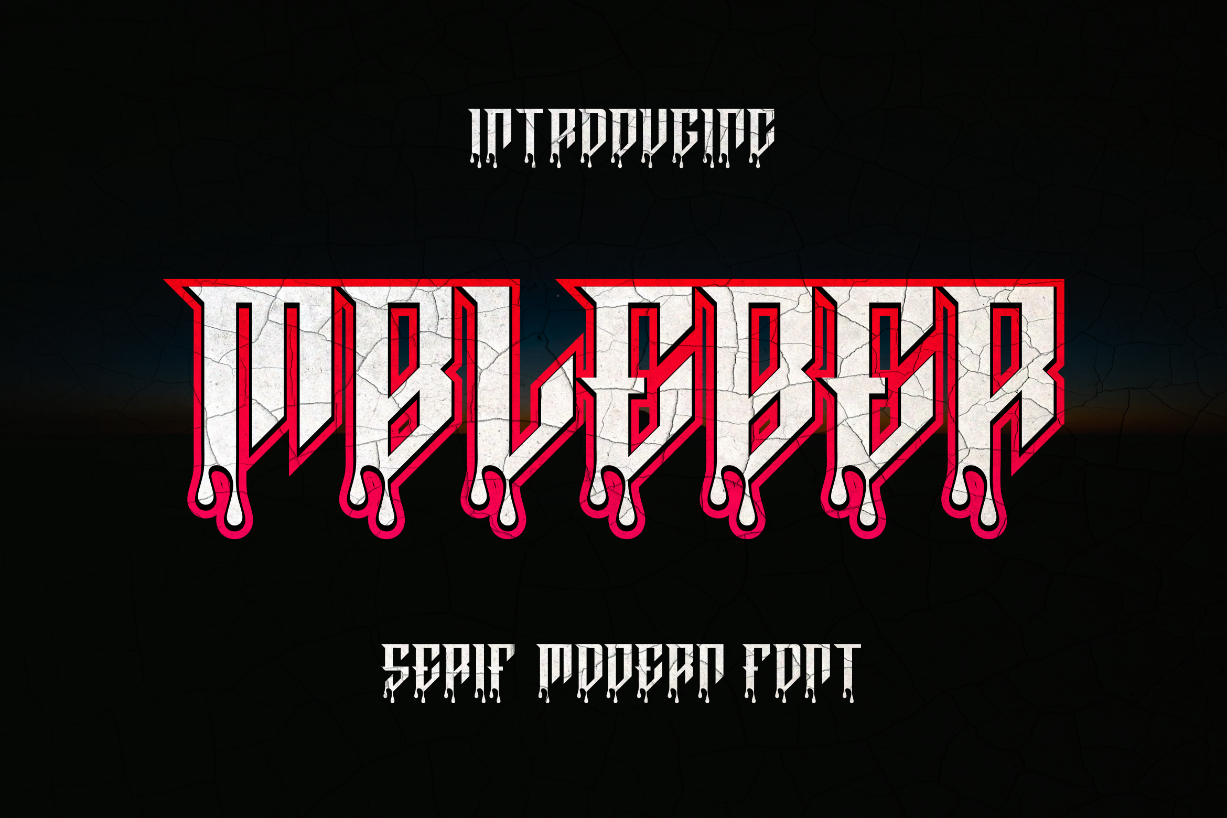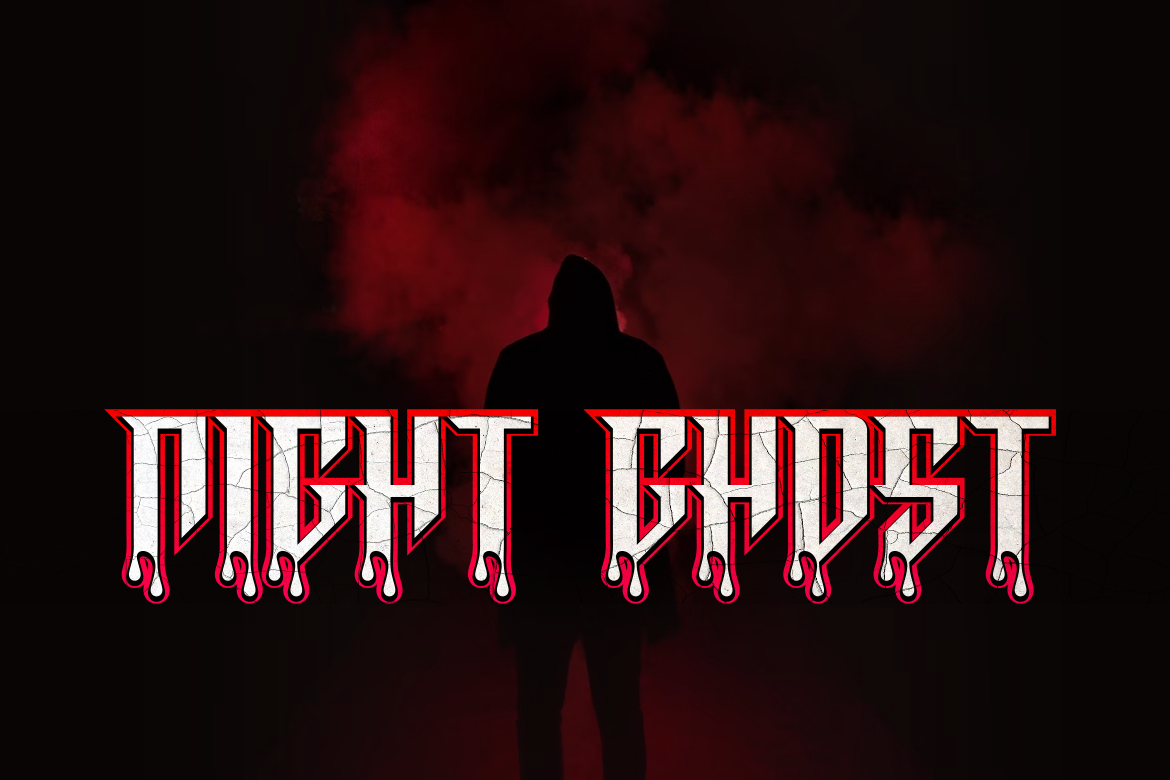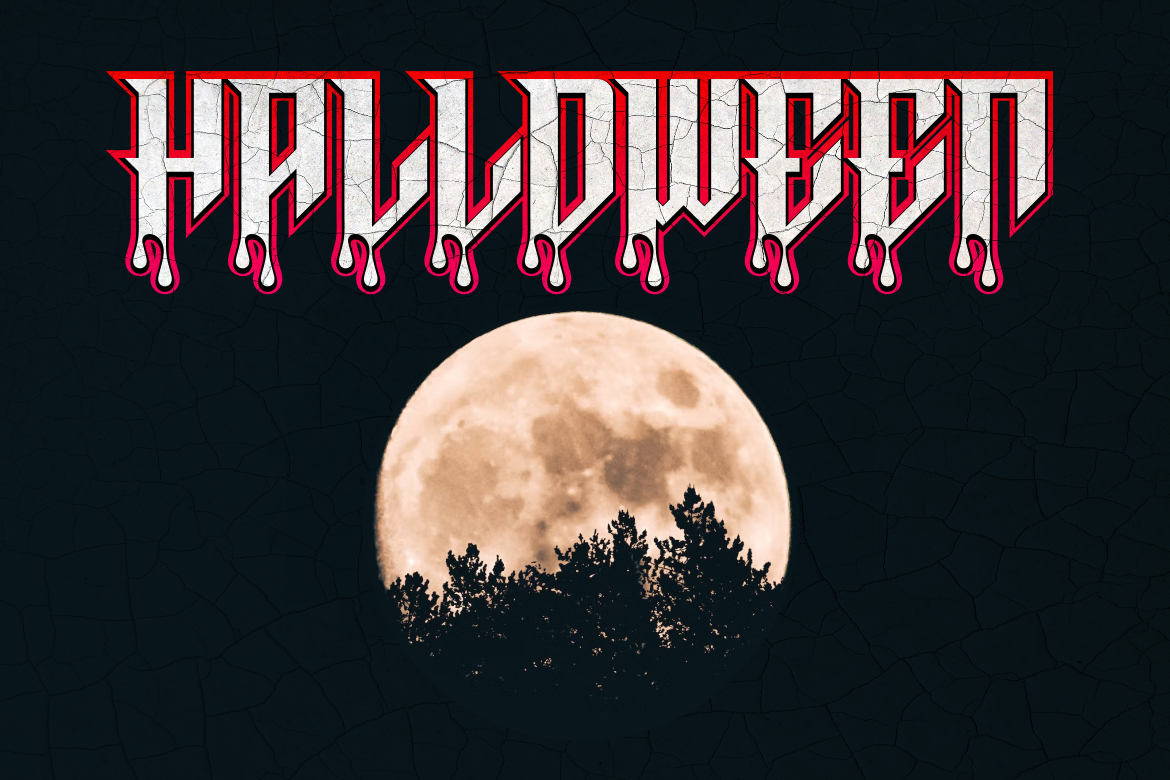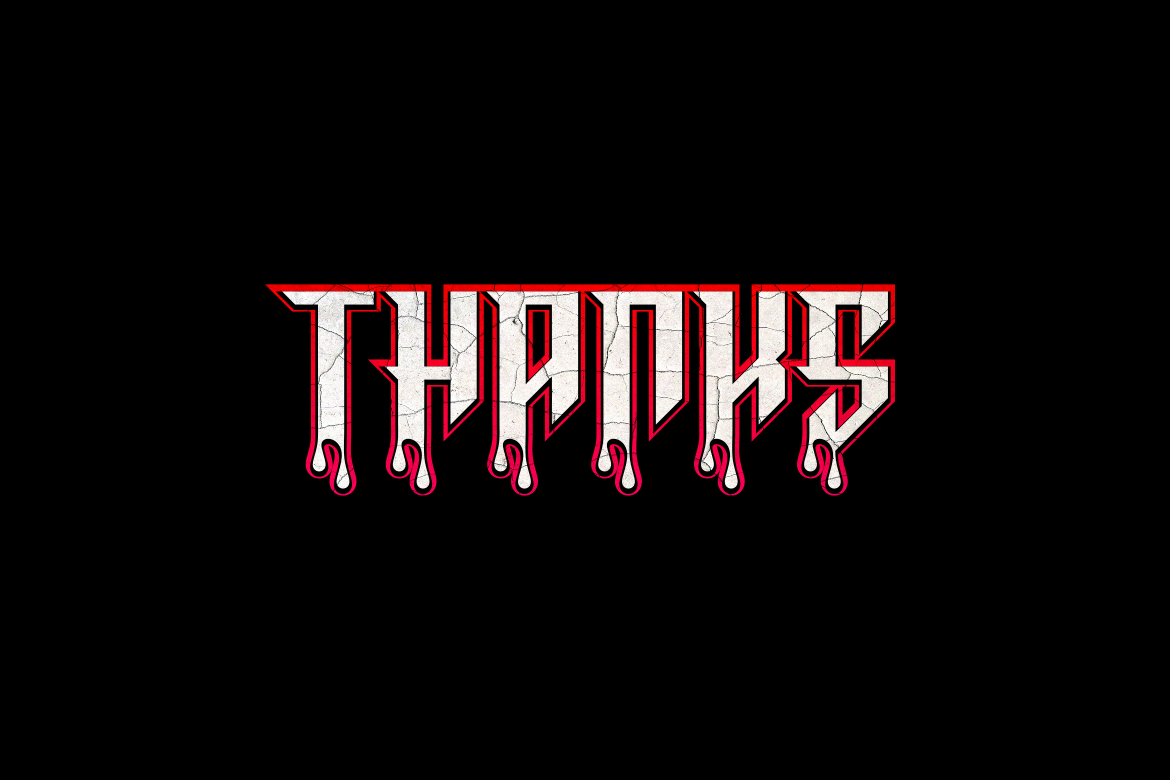
About Mbleber Font
Mbleer is a bold and impressive blackletter font. The font is suitable for any branding project like logo, t-shirt printing, esports, and many more. It will look outstanding in a wide range of contexts.